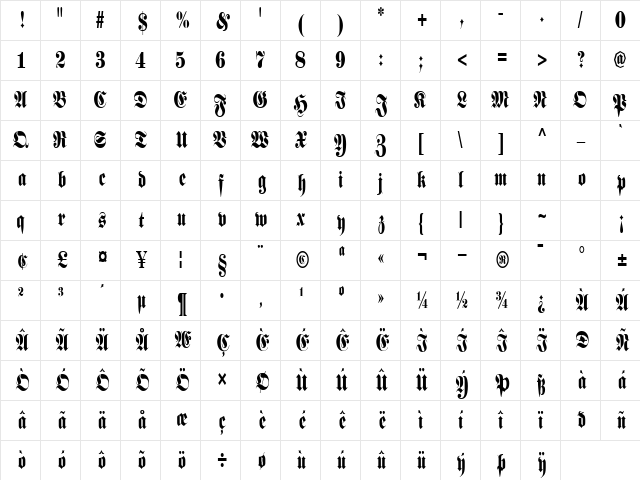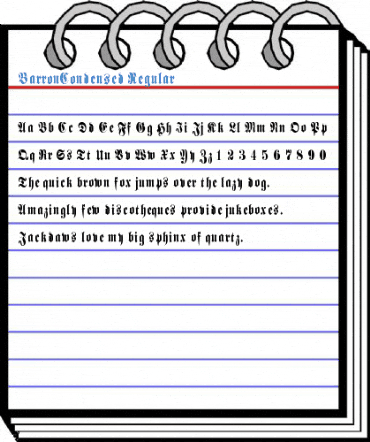
BarronCondensed is a composed and adaptable typeface that performs quietly and consistently across a wide range of design contexts. Its narrow stance lets it pack a punch even in space-constrained designs.
A practical choice for tight layouts, multi-column editorial design, and space-efficient signage.
Pro Tip: Use BarronCondensed in both headline and body roles to test its range before committing to a single application.